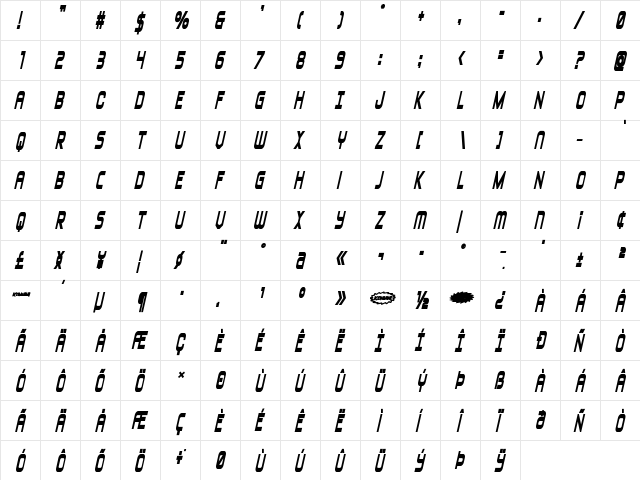
Blizzard Shaft Heavy SemItalic Regular
Design Context for Blizzard Shaft Heavy SemItalic Typeface
Blizzard Shaft Heavy SemItalic is a composed and adaptable typeface that performs quietly and consistently across a wide range of design contexts. The dynamic lean of this cut emphasises speed and emphasis in any layout.
Pro Tip: Use Blizzard Shaft Heavy SemItalic for emphasis, pull quotes, and subheadings where its slanted energy can add rhythm to the layout.